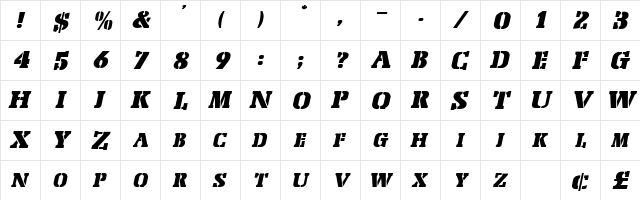
PeachCaps Oblique
Design Context for PeachCaps Typeface
PeachCaps is a composed and adaptable typeface that performs quietly and consistently across a wide range of design contexts. Its italic angle brings a sense of urgency and motion to the letterforms.
Pro Tip: Use PeachCaps for emphasis, pull quotes, and subheadings where its slanted energy can add rhythm to the layout.